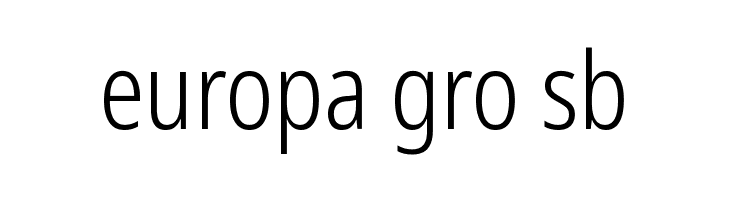
• Noto Sans Tamil ExtraCondensed Thin
A modern, extra-condensed, thin sans-serif font with a clean and minimalistic design.
A modern, condensed sans-serif font with an extra light weight.
A modern, semi-condensed sans-serif font with semi-bold weight, ideal for UI design.
A modern, thin, and extra condensed font with a clean and minimalistic design.
• Noto Sans Display Condensed Light
A modern, condensed sans-serif font with a light weight and low contrast.
• Noto Sans Armenian Condensed Black
A bold, condensed font with minimal contrast and geometric shapes, ideal for impactful headlines.
• Noto Sans Mono ExtraCondensed
A clean, monospaced, extra-condensed sans-serif font ideal for technical use.
• Noto Serif Hebrew Condensed SemiBold
A condensed, semi-bold serif font for Hebrew text, offering clarity and modern style.
• Noto Serif Thai ExtraCondensed Thin
A highly condensed, thin, and elegant font with uniform strokes.
• Noto Sans Hebrew Condensed
A modern, condensed sans-serif font with a clean and balanced design.